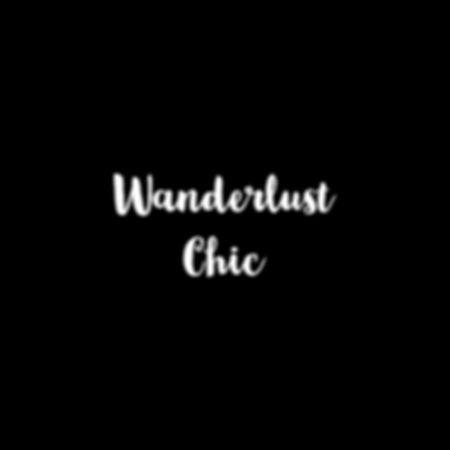
WANDERLUST CHIC FONT is a hand-painted whimsical script font. All letters have been carefully painted giving your words a wonderful flow. This font comes with Latin Pro Characters.
Wanderlust Chic Font